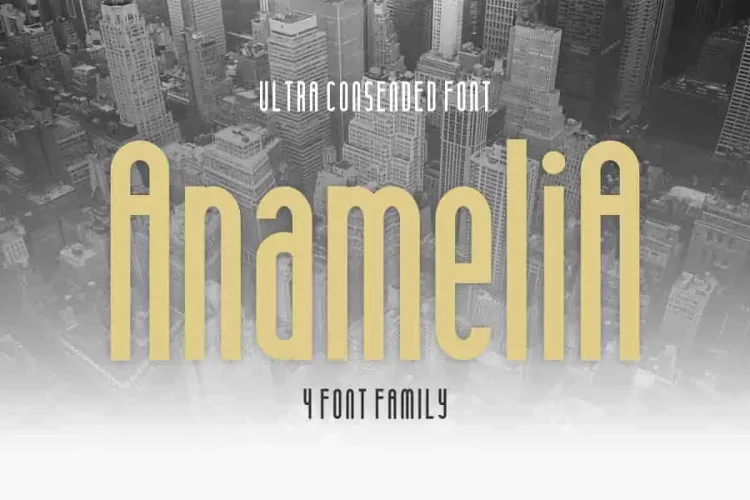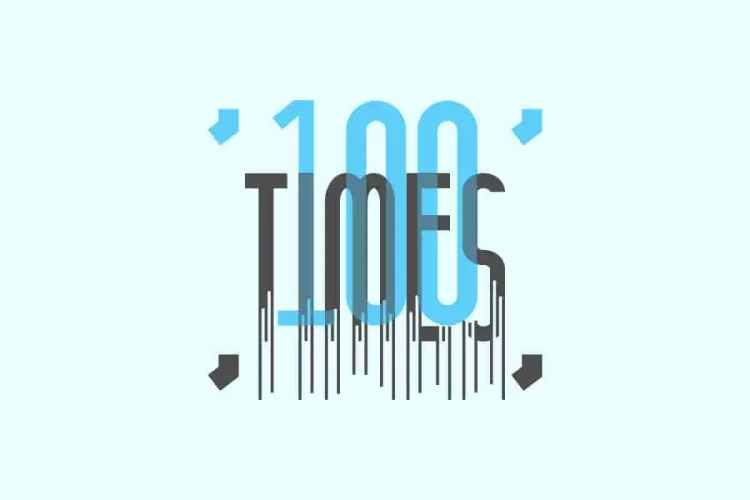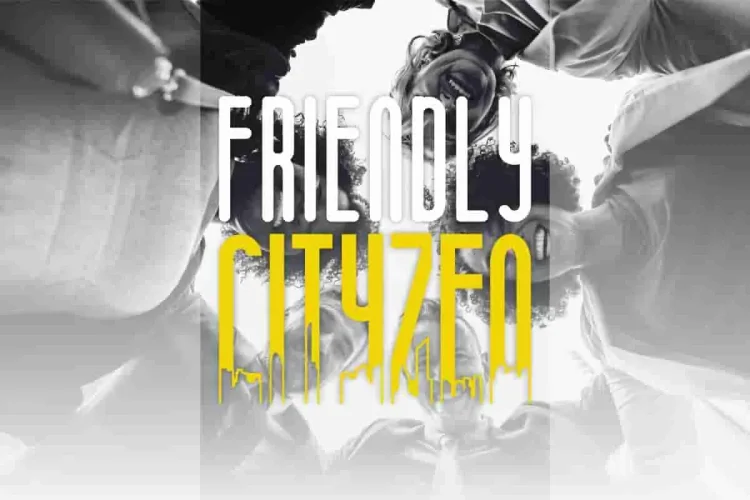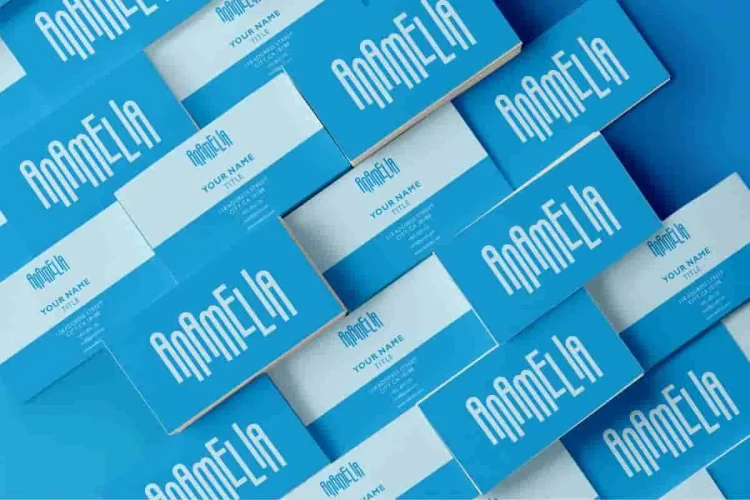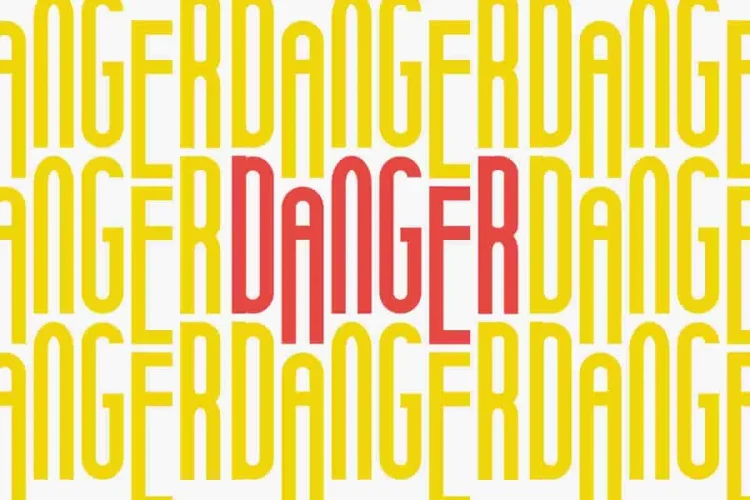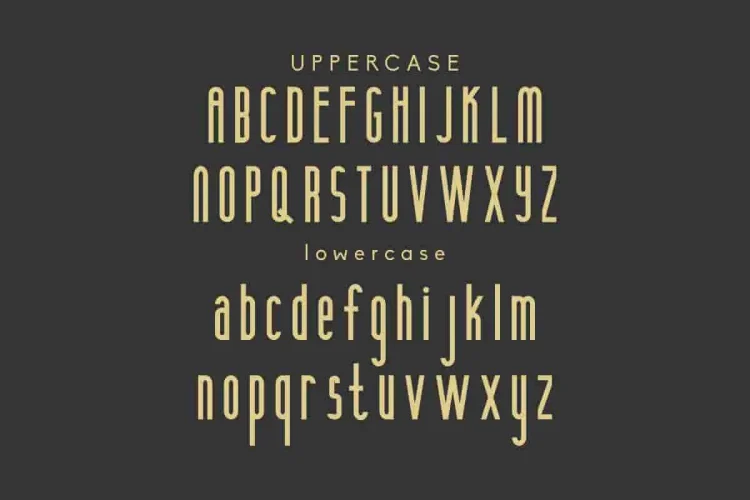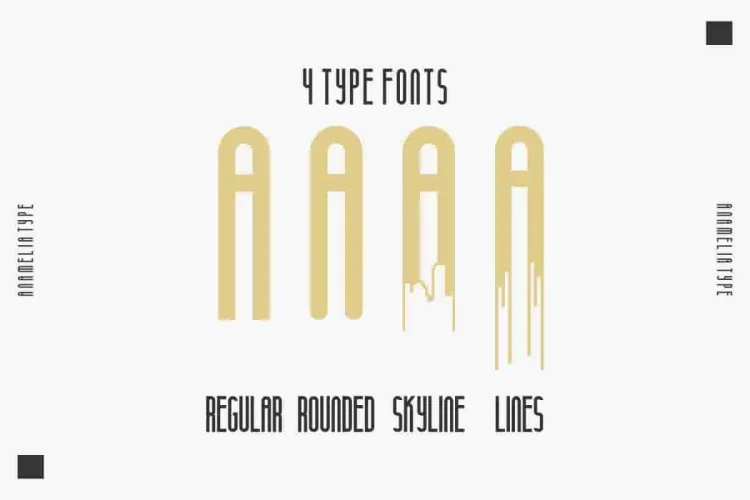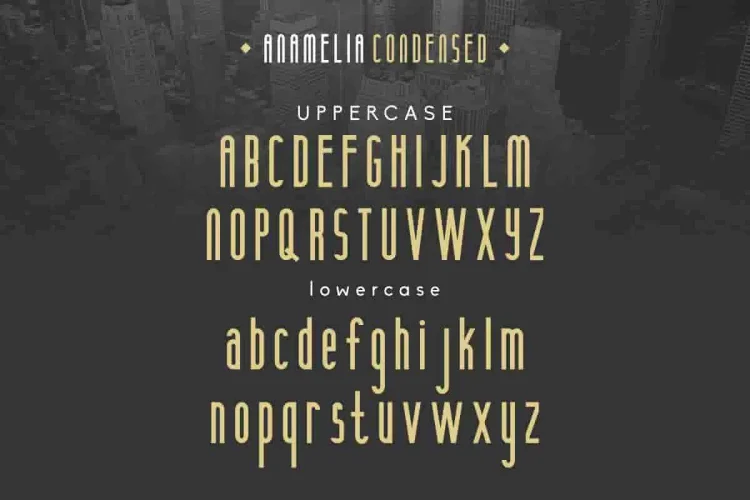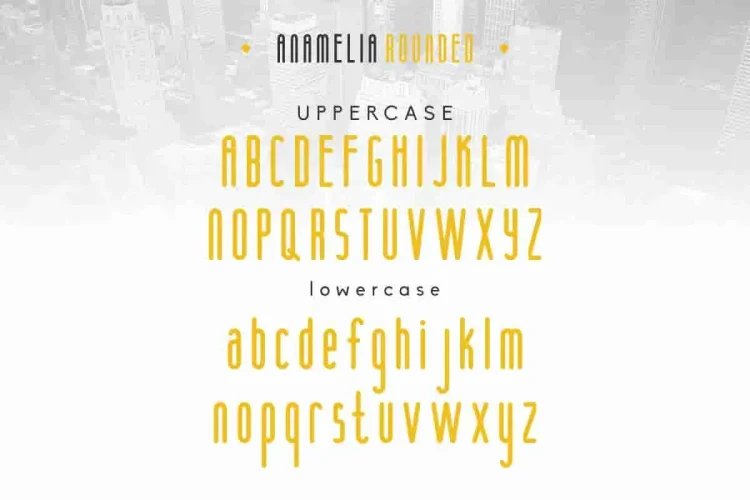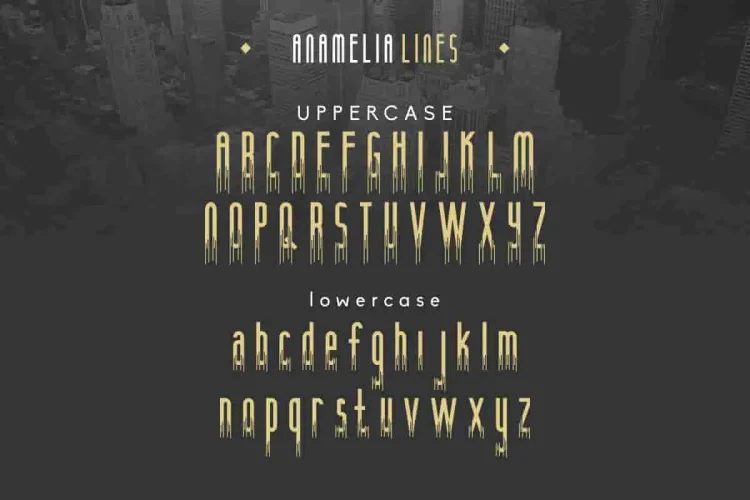
Anamelia Sans Serif Display Font
Introducing our newest font : Anamelia ! This is a new futuristic city modern sans serif display font. Especially for elegant and personal designs, it has a unique, and stylish glyph. With its tall, elegant construction and urban-inspired aesthetics, Anamelia is your go-to typeface for making bold, stylish statements.
🔍 What Makes Anamelia Truly Stand Out?
Each font style in the Anamelia family brings something unique to the table:
• Regular – Sleek and modern with tall proportions. It’s confident, clean, and highly legible — ideal for tech-forward branding.
• Rounded – Features smooth, softened corners for a more approachable and contemporary look. Great for creative or lifestyle brands.
• Skyline – Designed with a futuristic drip effect, perfect for industries like fashion, music, or events that need a strong visual identity.
• Lines – Edgy and expressive with vertical deconstructed strokes. Adds motion and energy to headlines, posters, or digital ads.
This versatility allows you to mix and match styles across projects — creating contrast, hierarchy, and emphasis within the same type family. It’s not just a font, it’s a visual system. Will be great for branding, logo, stationery, business card, signage, flyer, brochure etc.
Its strong visual identity fits a wide range of industries such as construction, real estate, services, law firm, music, salon, architect, designer etc. With a minimalist yet bold design, Anamelia is perfect for those who want to make a lasting impression.
🎯 Why choose Anamelia?
• Highly Versatile: Perfect for industries like real estate, construction, legal services, fashion, music, architecture, and more.
• Modern Appeal: A blend of futuristic design with geometric precision, making it ideal for logos, posters, signage, brochures, and business cards.
• Full Character Support: Includes uppercase, lowercase, numbers, and punctuation.